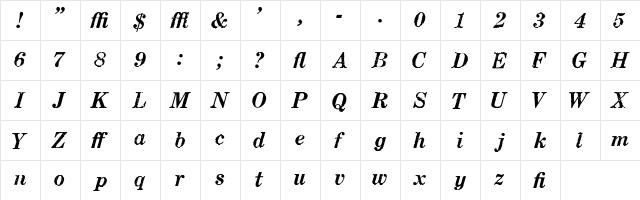
Matchwood Bold Italic WF Regular Font Preview
Design Context for Matchwood Bold Italic WF Typeface
Matchwood Bold Italic WF echoes the hand-painted signage and woodblock typography of the American frontier, with a warm, rugged personality. Its italic angle brings a sense of urgency and motion to the letterforms. The heavy weight commands attention and anchors typographic hierarchies.
A natural fit for craft spirits, ranch branding, rodeo events, and Americana-inspired design work.
Font Pairing: Combine Matchwood Bold Italic WF with a simple slab or neutral sans — period-accurate companions reinforce the vintage feel without competing for attention.
Pro Tip: Use Matchwood Bold Italic WF for short, impactful bursts of text — it shines in poster headlines and product names rather than extended copy.